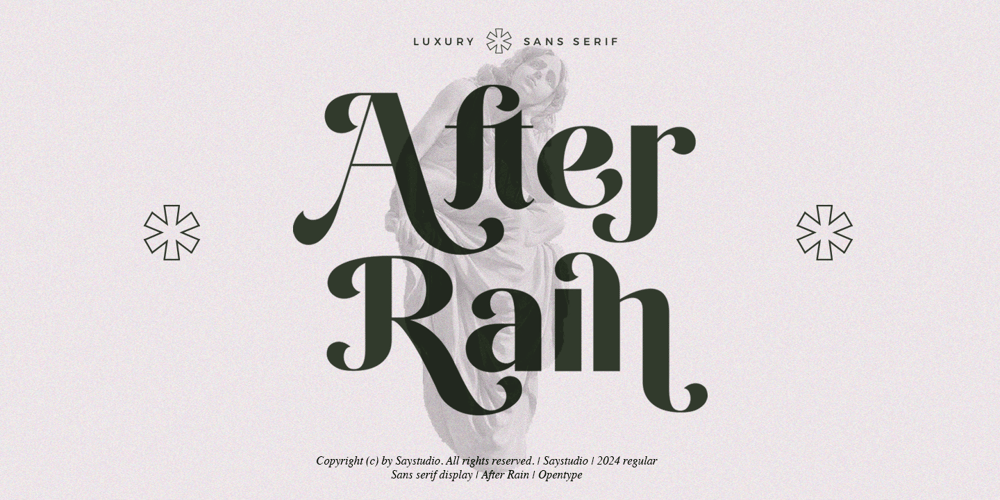
After Rain
After Rain font
After Rain Font Family was designed by Mussyayin and published by Say Studio. After Rain contains 2 styles and family package options. Introducing After Rain – Luxury Sans FontAfter Rain is a Modern Luxury and Elegant font with beautiful ligatures, tons of special alternative glyphs, ornament and multilingual support. It’s a very versatile font that works great in large and small sizes. After Rain is perfect any project as logotype design, branding, cosmetic brands, wedding invitations, suite and stationery, greeting cards, , social media promo, quotes, banners and everything you can imagine!Features:- Regular and Italic- Stylistic Alternates & Ligatures- Numerals & Punctuation- Accented characters- Multiple Languages SupportedHope you enjoy this new font and if you like it, reviews after purchase are more than welcome and very helpful to keep improving and growing my shop!Support:If you have any question, please contact me by sending a message, I will be happy to help or solve any problem!HOW TO ACCESS ALTERNATE CHARACTERSOpen glyphs panel:In Adobe Photoshop go to Window – glyphsIn Adobe Illustrator go to Type – glyphsThanks for checking out our font! I really hope you enjoy using it!Say Studio